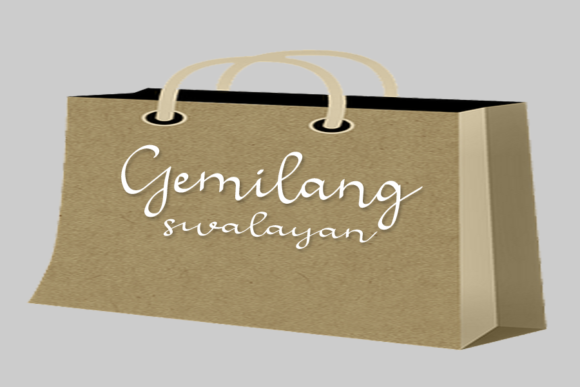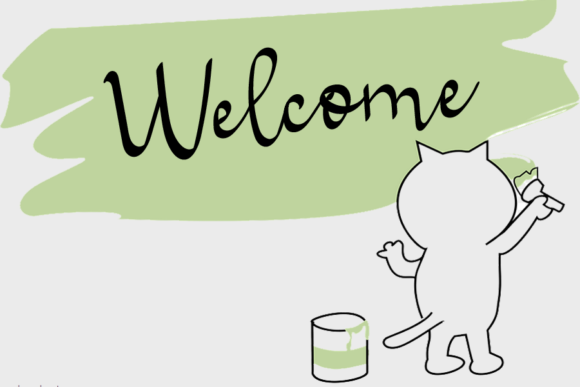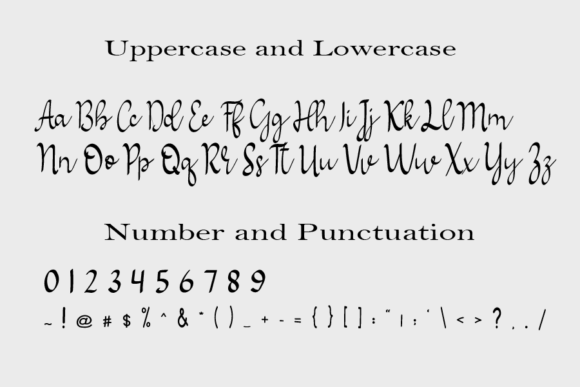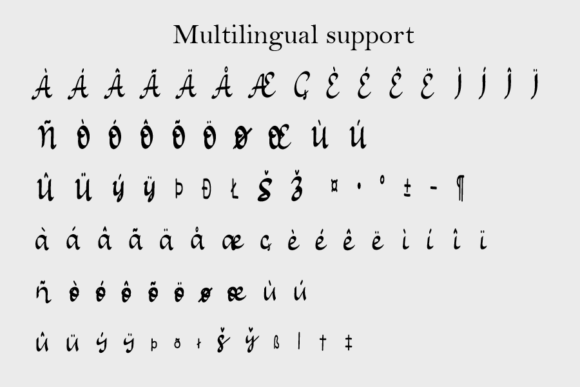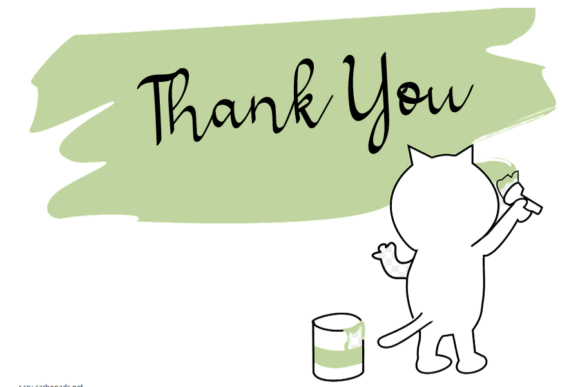
Introduction to Signatured Font
Remember that moment when you were brainstorming ideas for your latest creative project, and the perfect font just seemed to elude you? You’ve spent hours searching through design resources, only to end up with a mediocre result that doesn’t quite match your vision. Well, we’re here to change that with the enchanting Signatured Font.
This magical script font is a game-changer for designers, offering a touch of elegance that’s hard to find in other high-quality fonts. Whether you’re working on a DIY project, creating social media content, or simply looking for a unique design element, Signatured Font is the perfect addition to your design arsenal.
Key Features of Signatured Font
- High-quality design: The Signatured Font is a premium design resource that offers a unique and stylish look for your creative project.
- Unique script style: The Signatured Font features a unique script style that adds a personal touch to your creative project, making it stand out from the crowd.
Honest Review: Signatured Font
As a designer, I’m always on the lookout for high-quality fonts that can elevate my creative projects. I recently stumbled upon the Signatured Font, and I’m excited to share my honest review.
- The font is available in a variety of weights and styles, providing ample options for creative projects.
- The transparent background makes it easy to use as a design element or overlay.
- The font is highly customizable, allowing designers to adjust the size, color, and spacing to suit their needs.
Overall, I’m impressed with the Signatured Font’s quality and versatility. While it has some limitations, it’s an excellent resource for designers working on personal or small-scale projects. With its free download and transparent background, it’s definitely worth checking out.
Signatured Font
Tips for Getting the Most Out of Signatured Font
To get the most out of the Signatured Font, use it consistently throughout your design to create a cohesive look. Experiment with different font sizes and styles to add visual interest. Finally, pair the font with other design elements, such as images or colors, to create a unique and effective design.
The Signatured Font is ideal for a variety of creative projects, including logos, business cards, presentations, and documents. It’s also great for personal projects, such as creating a wedding invitation or designing a website. The font’s high-quality design and transparent background make it a versatile design resource.